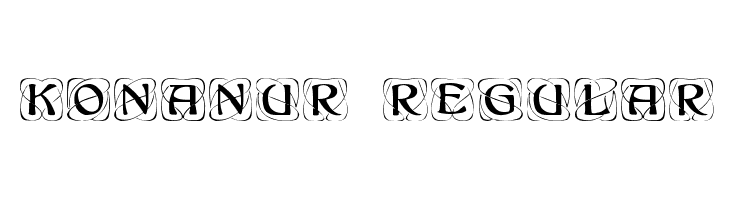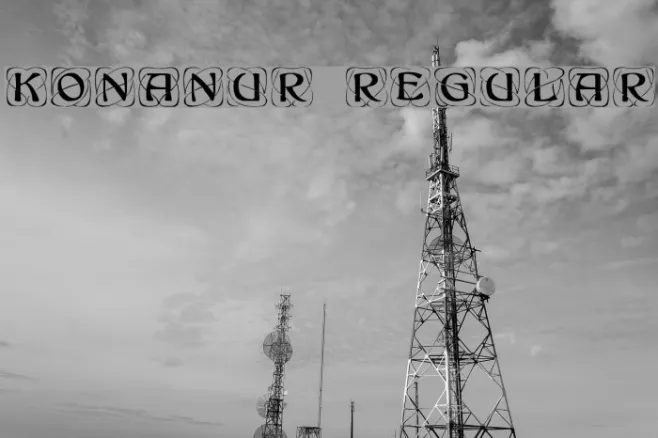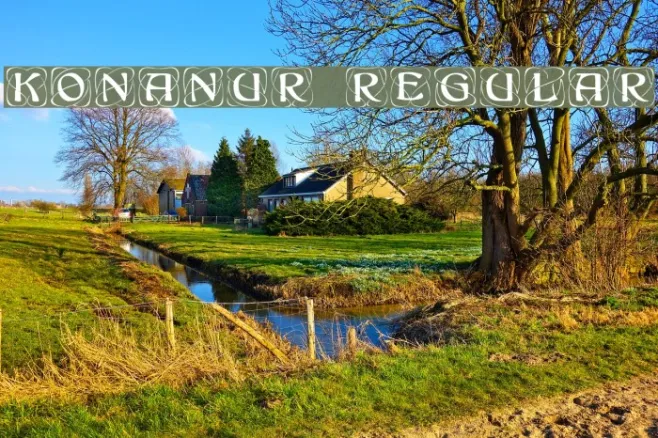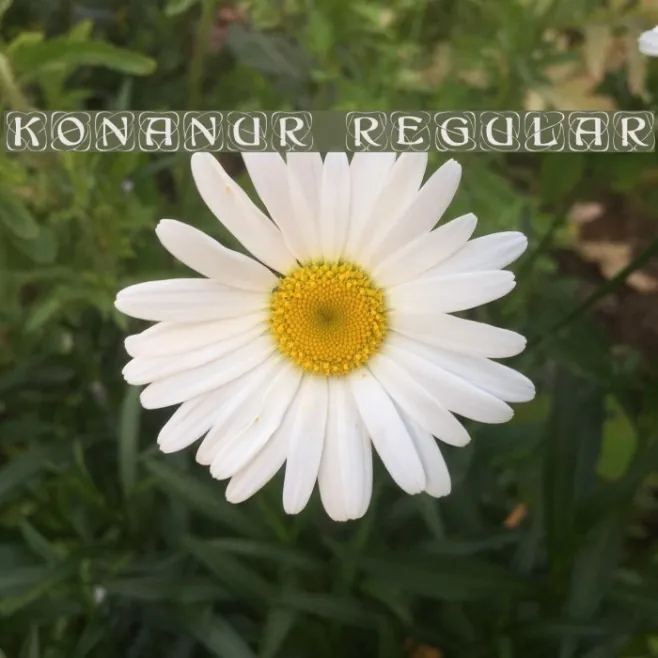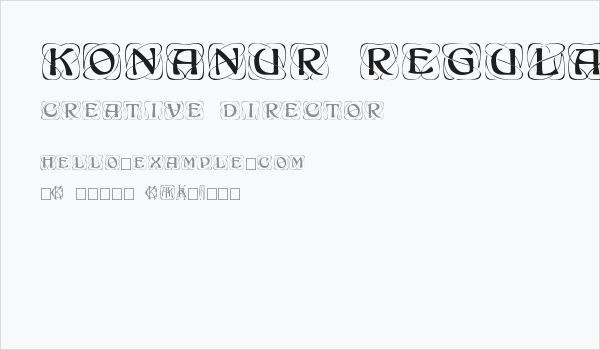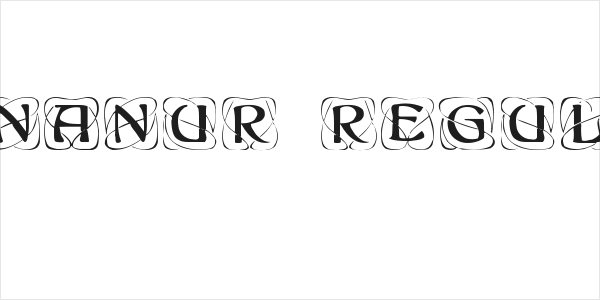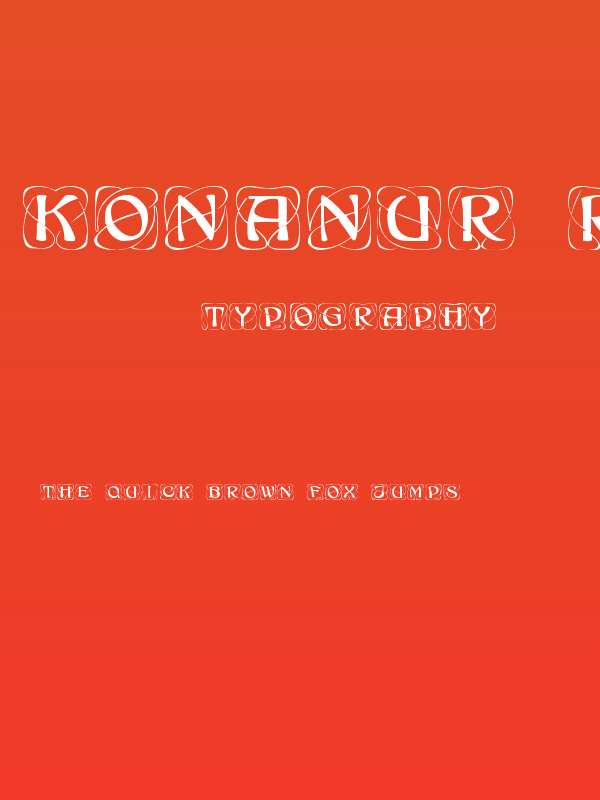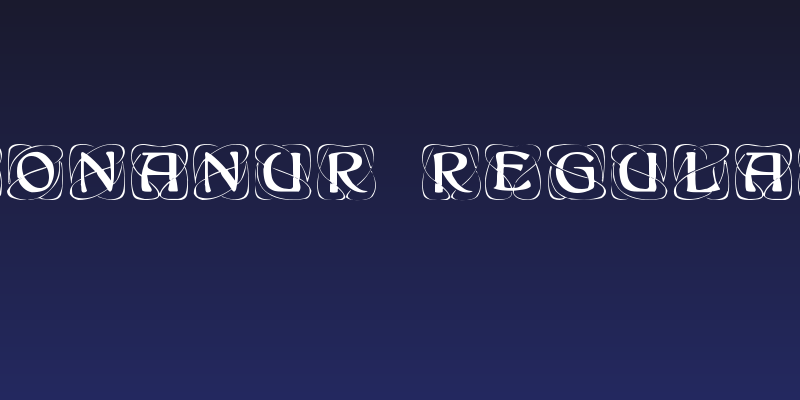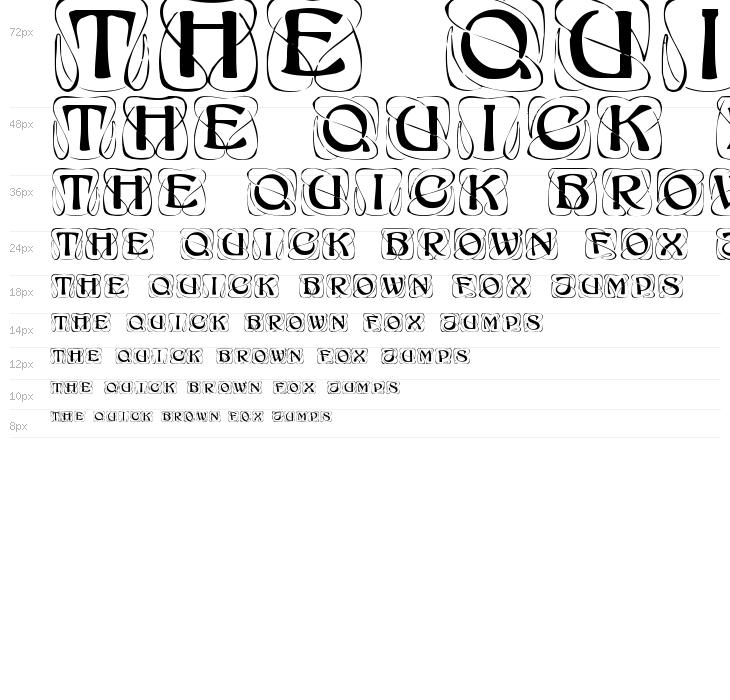
Konanur Regular Font
Konanur Regular Description
This font features a unique and intricate design with each character enclosed in a decorative, swirling frame. The letters themselves are bold and slightly condensed, with a high contrast between thick and thin strokes. The overall appearance is ornate, making it stand out as a decorative display font. The uppercase and lowercase letters maintain a consistent style, while the numbers and special characters are equally embellished, ensuring a cohesive look across all elements.